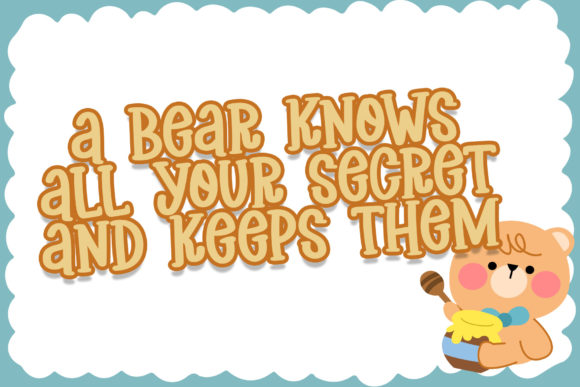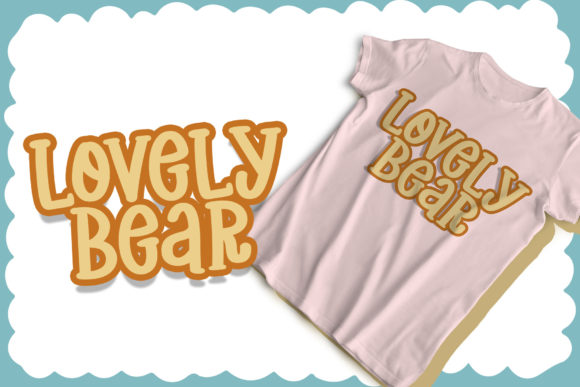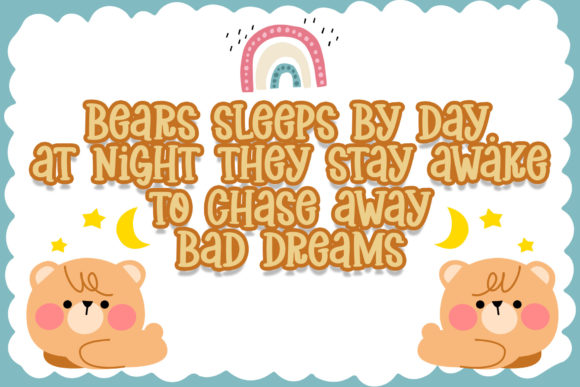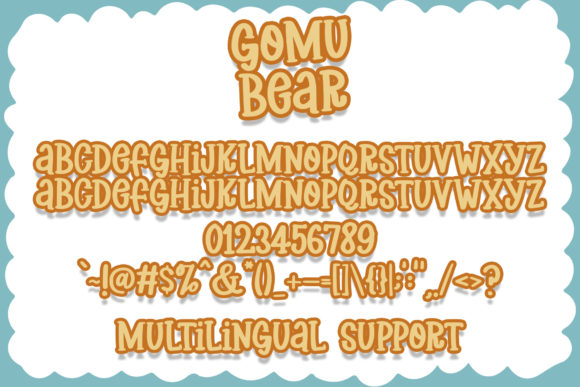
Introduction to Gomu Bear Font
Remember the excitement of creating your first digital art project? The thrill of combining colors, shapes, and text to bring your imagination to life? For designers, it’s a moment of pure joy, and having the right design resources can make all the difference. One such resource is the Gomu Bear Font, a fun and friendly display font that’s perfect for adding a lovely touch to your creations.
Whether you’re working on a cartoon-related design, a children’s game, or any other project that requires a playful vibe, the Gomu Bear Font is an amazing choice. With its high-quality design and transparent background, it’s a valuable asset for any designer looking to elevate their creative project. And the best part? It’s available for a free download, making it an accessible design resource for everyone.
Key Features of Gomu Bear Font
- High-quality design resource ideal for creative projects, offering a unique and playful style.
- Includes a range of characters, including uppercase and lowercase letters, numbers, and special symbols.
- Designed with a modern and quirky aesthetic, making it perfect for adding a touch of whimsy to designs.
Honest Review: Gomu Bear Font
I recently stumbled upon the Gomu Bear Font, and I’m excited to share my thoughts on this design resource. As a designer, I appreciate fonts that can add a unique touch to my creative projects, and Gomu Bear Font certainly delivers.
- High-quality design that’s perfect for modern designs
- Unique and playful style that can add a fun twist to designs
- ⚠️ Limited character set, which might not be suitable for longer texts
- ⚠️ Not ideal for professional or formal designs, as it’s quite playful and casual
Overall, I’m impressed with the Gomu Bear Font. It’s a great addition to any designer’s toolkit, especially for creative projects that require a unique touch. While it has some limitations, it’s a high-quality design resource that’s definitely worth checking out.
The Gomu Bear Font is a high-quality, free design resource ideal for creative projects. It features a transparent background, making it versatile for various applications.
Experiment with different font sizes, colors, and combinations to achieve unique designs. Use it in conjunction with other design elements to create visually appealing graphics.
The Gomu Bear Font is suitable for various creative projects, including social media graphics, presentations, and blog posts. Its transparent background makes it easy to combine with other design elements.